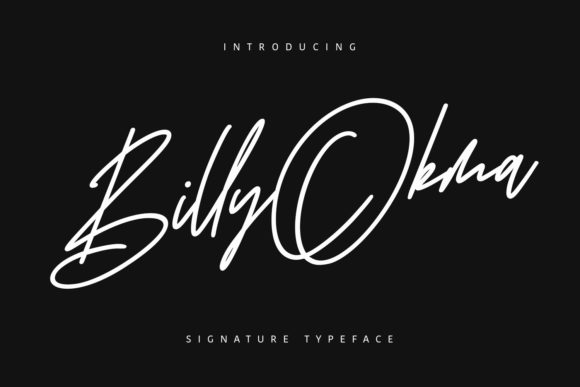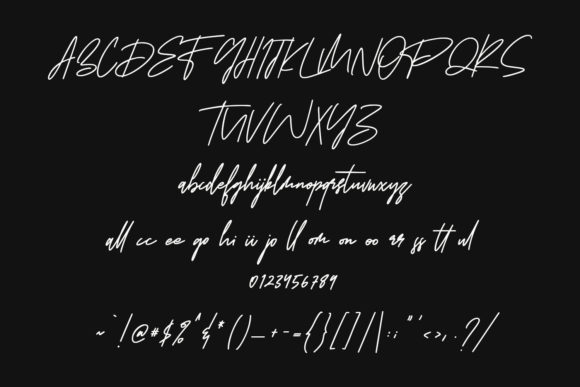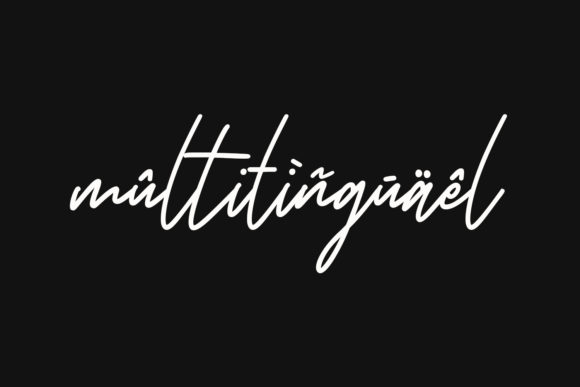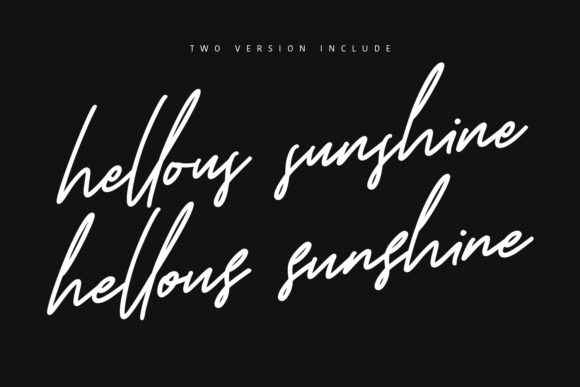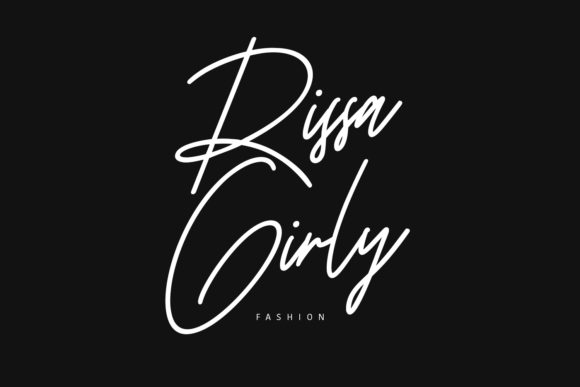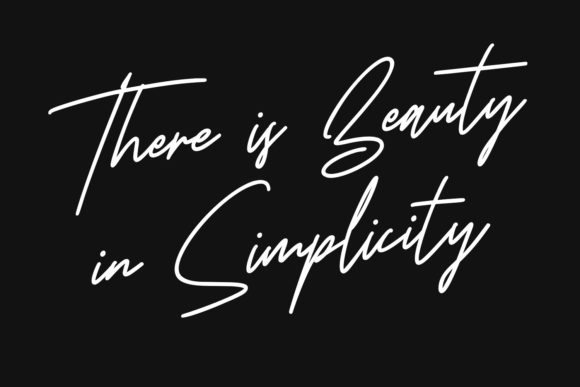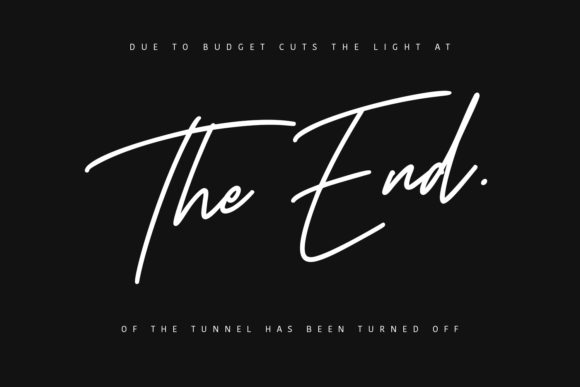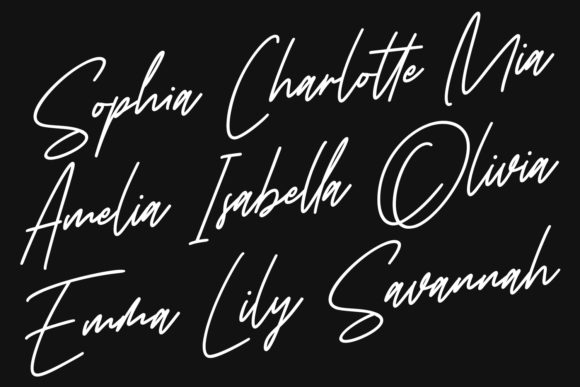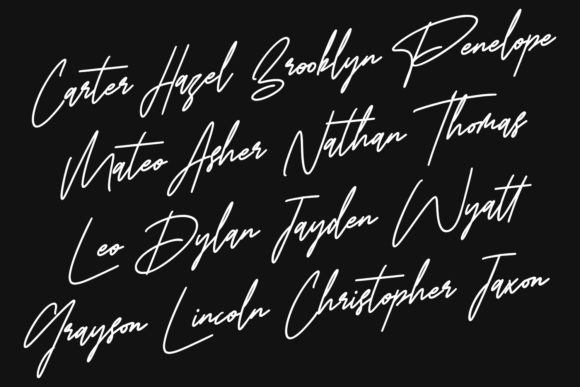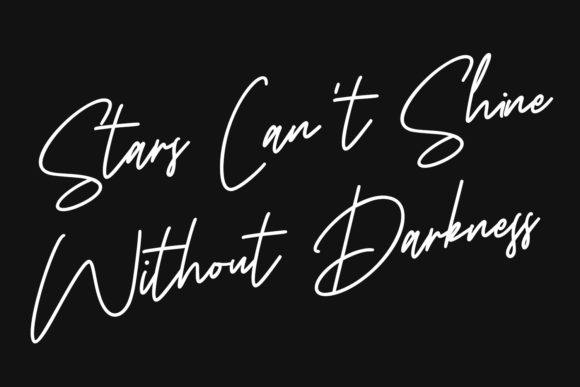
Billy Okma Font
About Billy Okma Font
Billy Okma feels equally charming and elegant. This stunning script font is a stylish homage to classic calligraphy. Fall in love with its authentic feel and use it to create gorgeous wedding invitations, beautiful stationary art, eye-catching social media posts, and cute greeting cards.